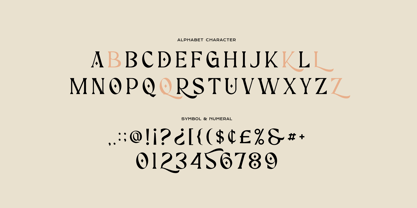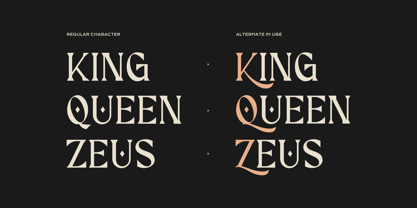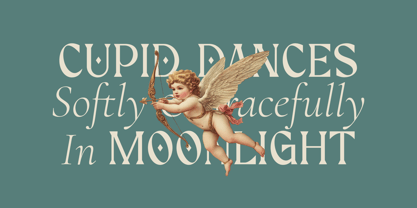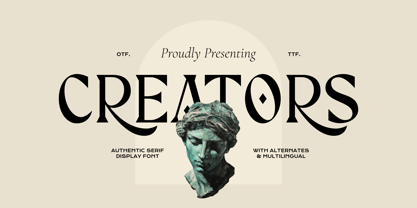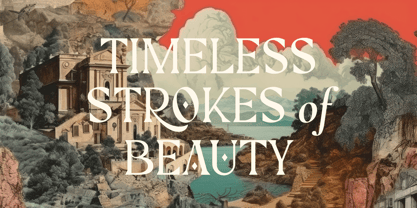
Creators
by Imoodev
The Creators Font Family was designed by Aulia Savira Putri and published by Imoodev. Creators contains 1 styles. More about this family
The 'CREATORS' is a elegant authentic serif display typeface that merges classical typographic elegance with contemporary twist. This typeface ideal for luxury branding, editorial headlines, art publications, and any application that demands both authority and artistry.
Designers: Aulia Savira Putri
Foundry: Imoodev